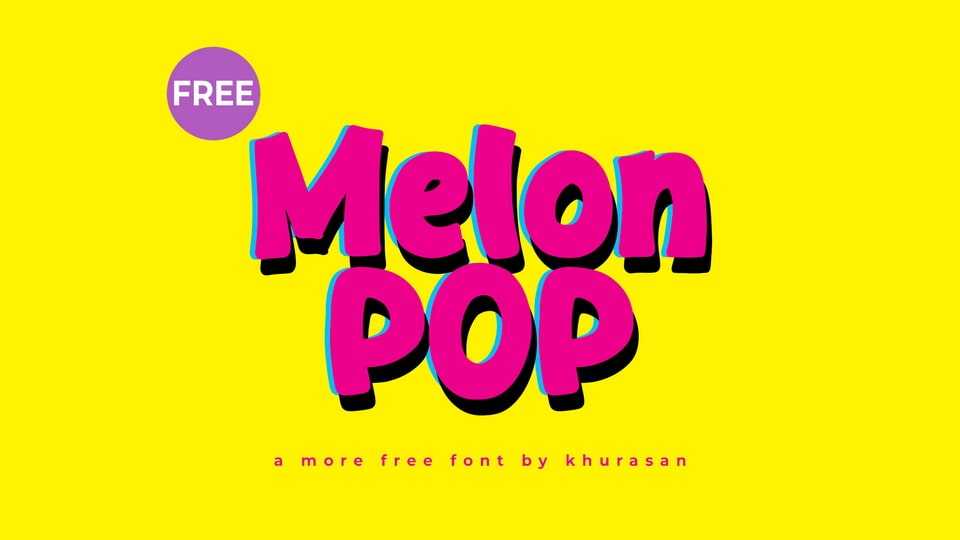
Download Melon Pop font, a bold, playful display typeface bursting with energy and color. Its chunky letterforms, soft curves, and bouncy proportions create a fun personality.